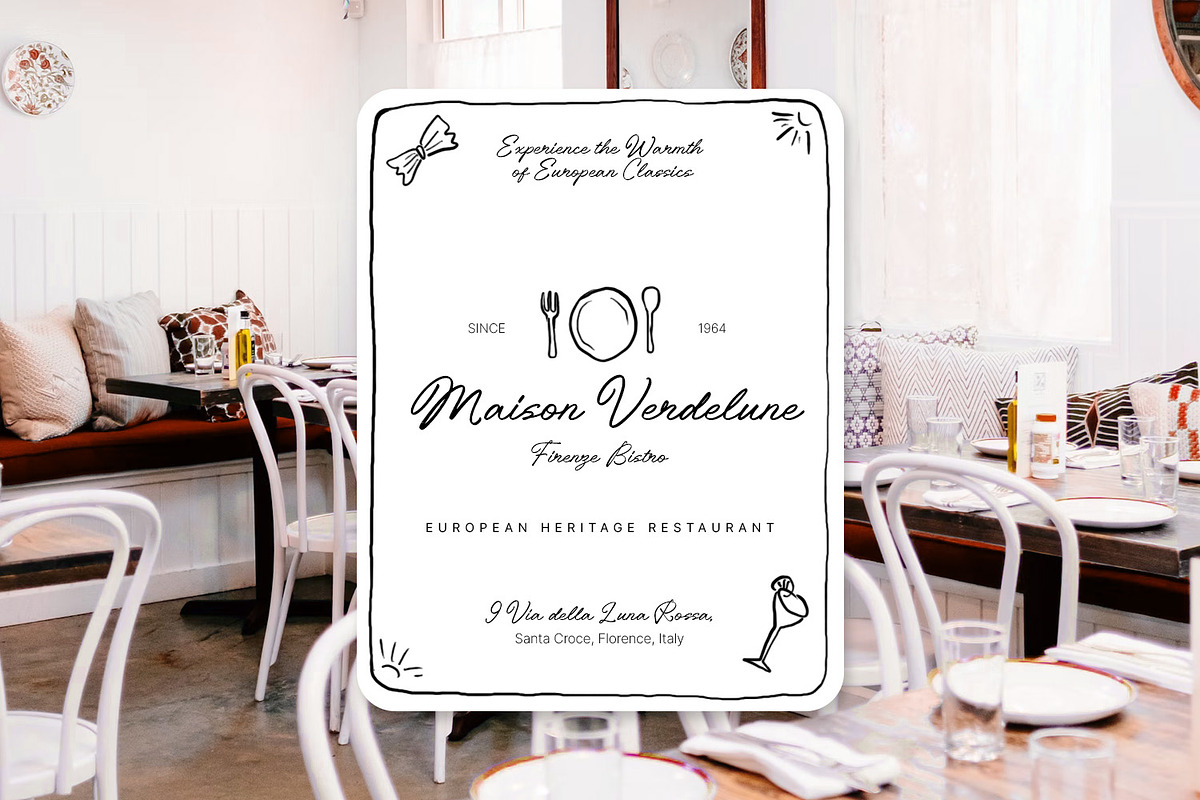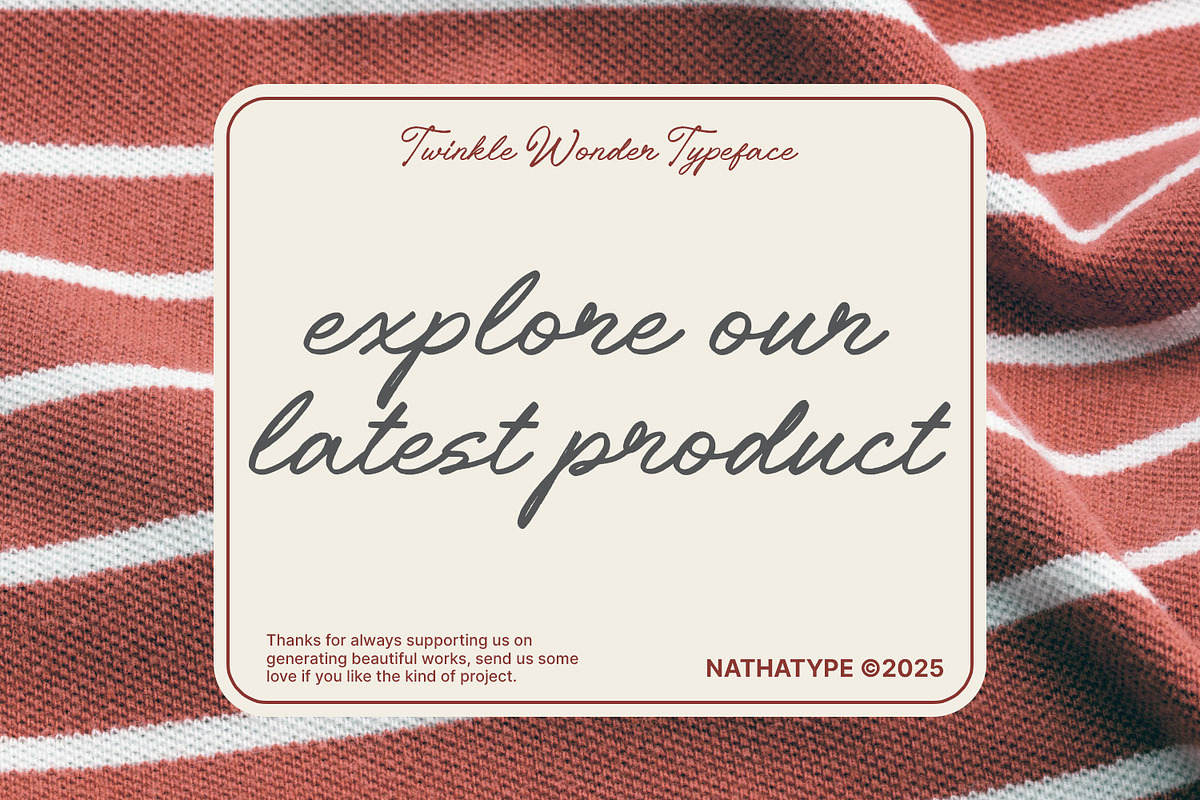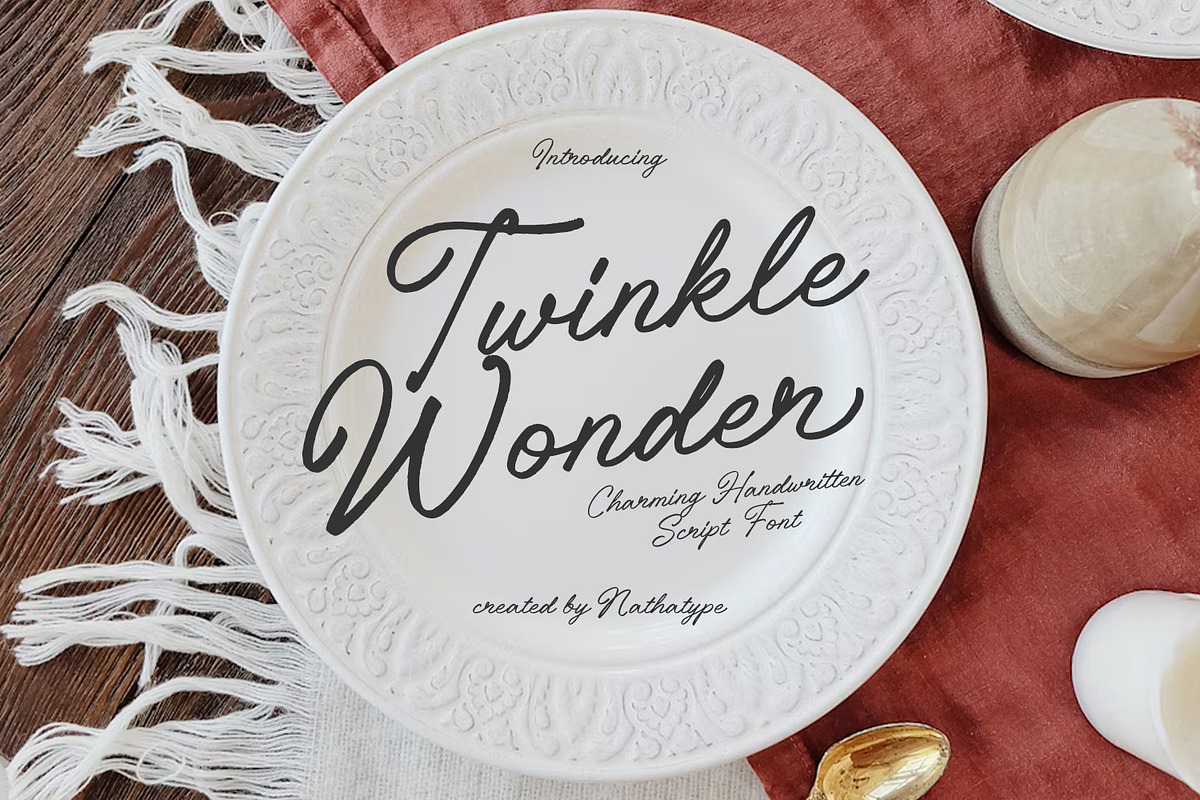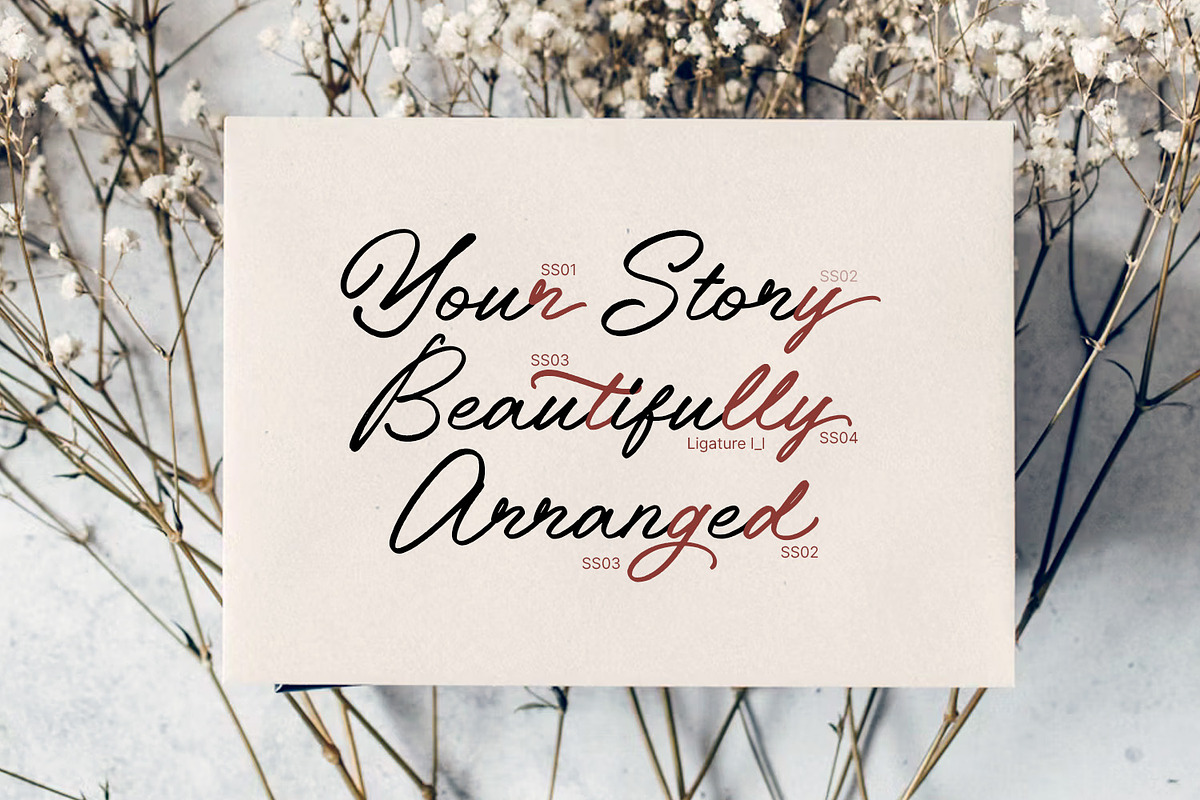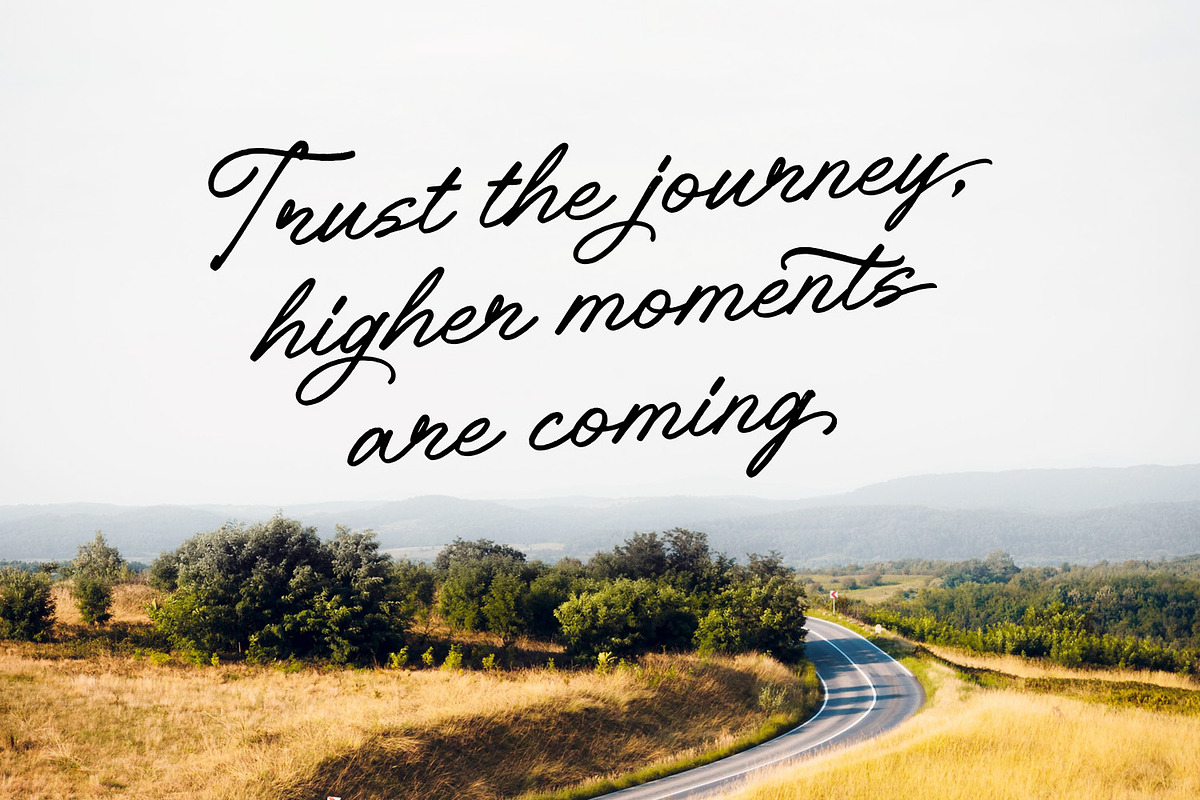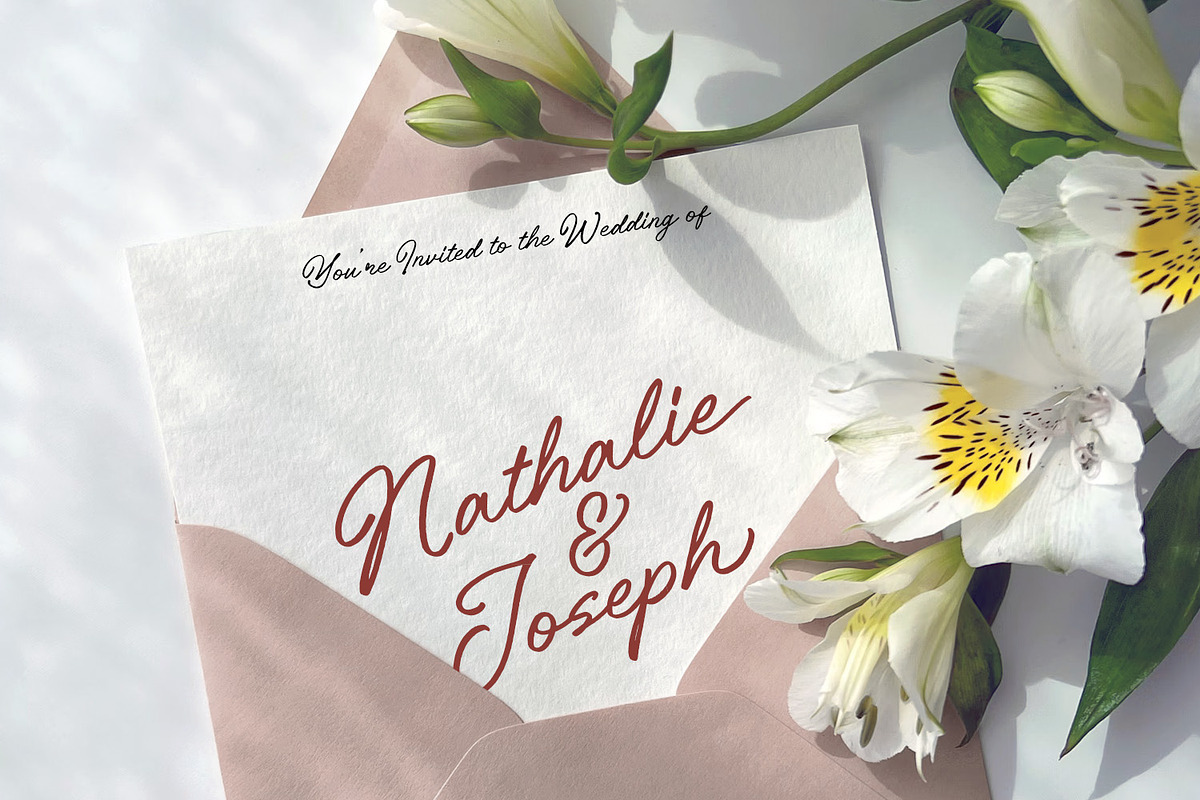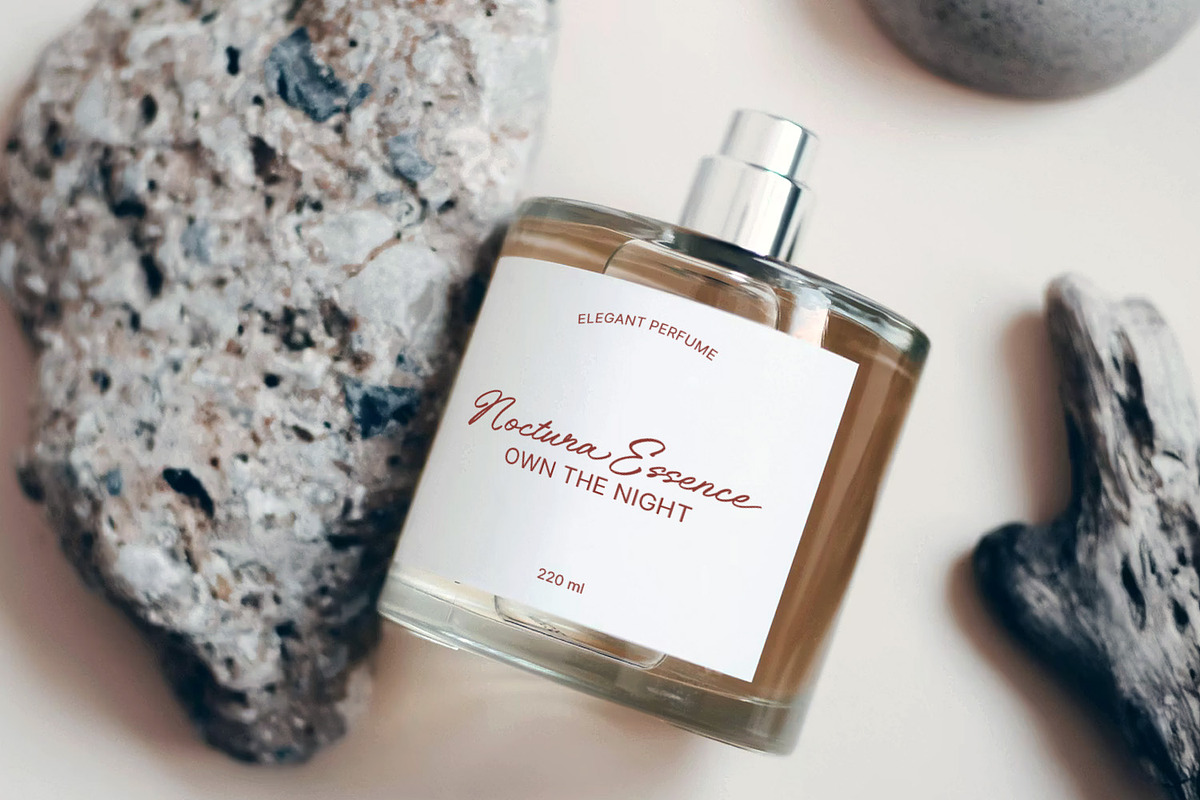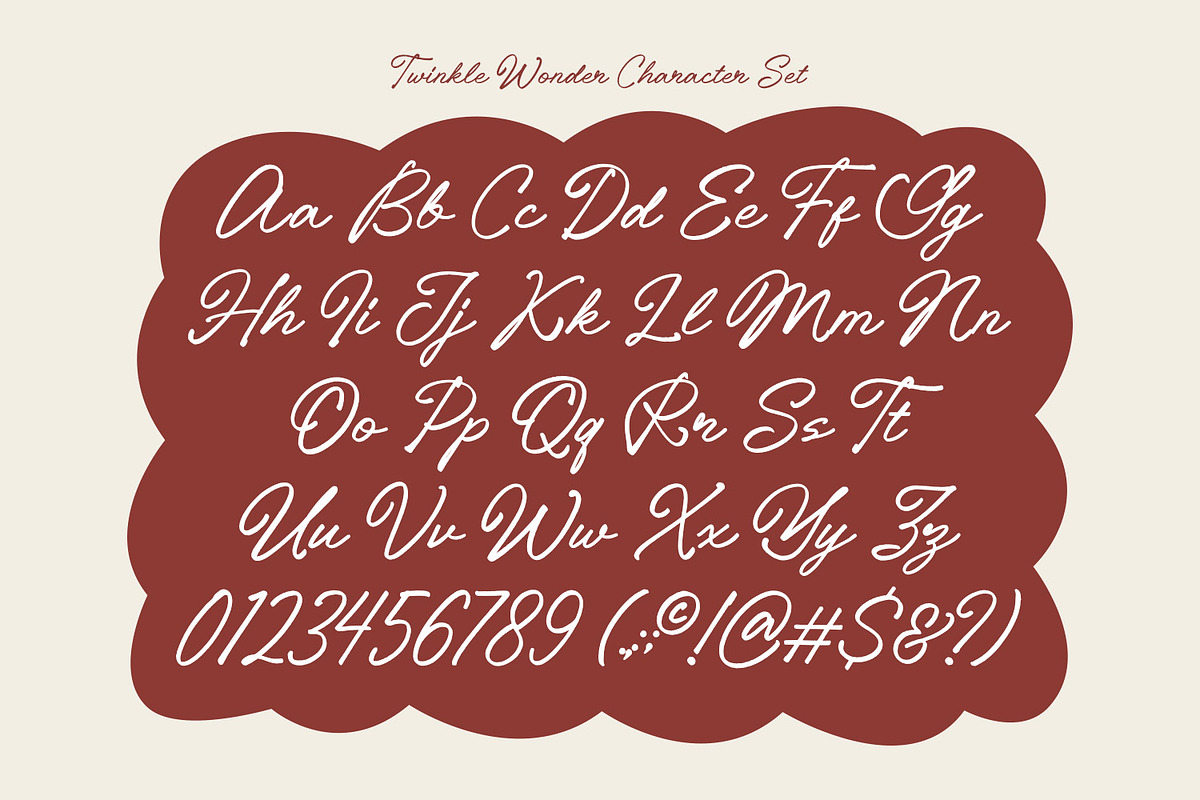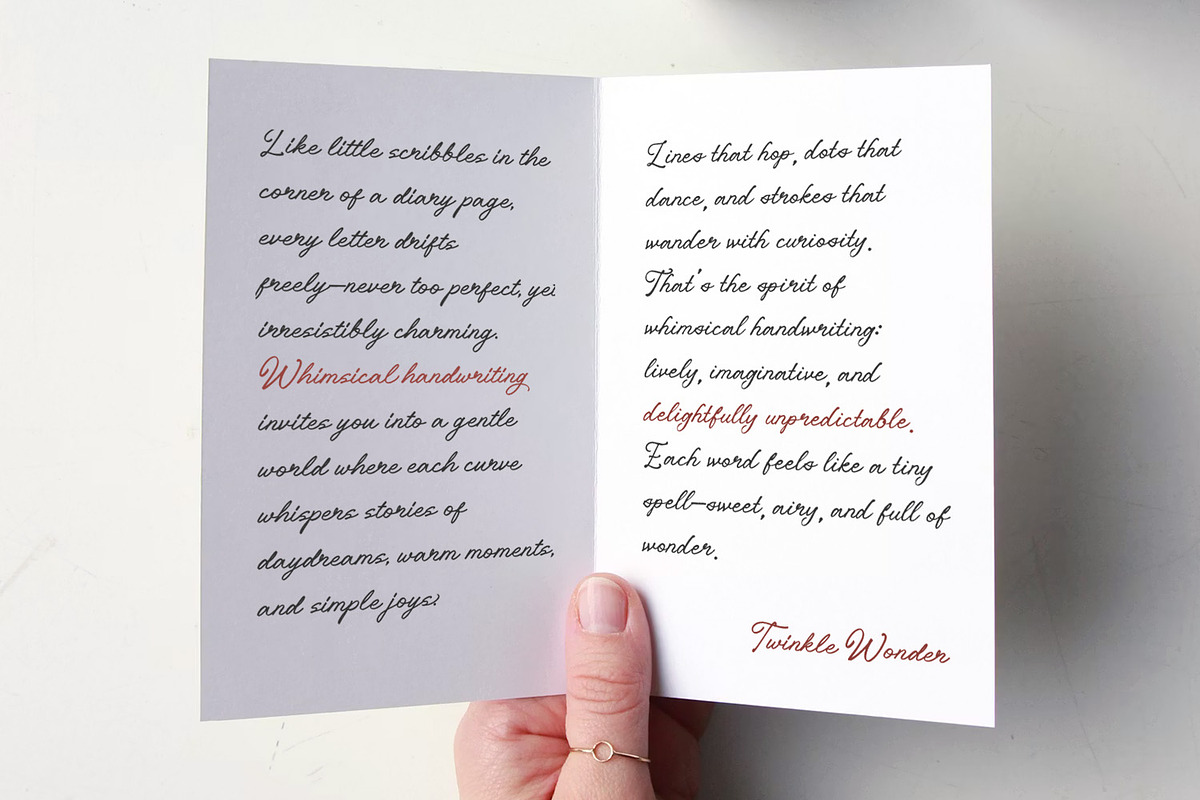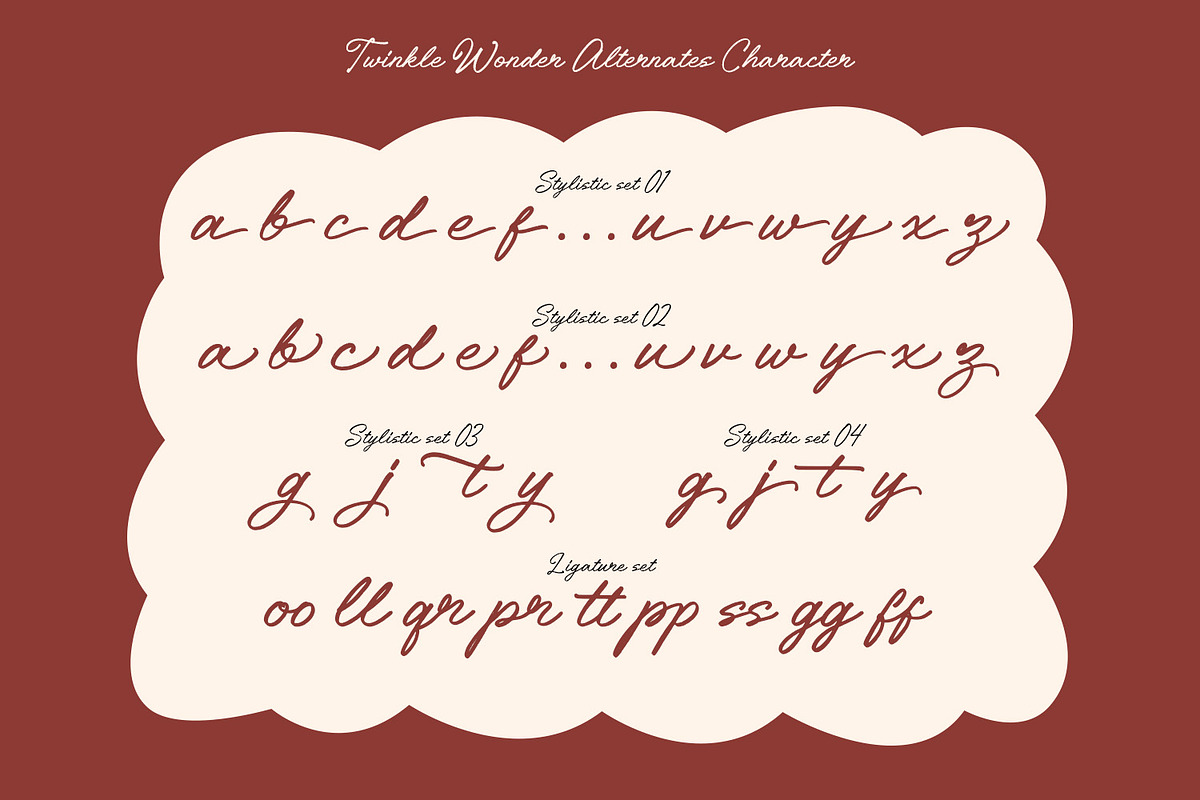
Twinkle Wonder
Twinkle Wonder is a charming script font. Inspired by natural cursive writing, Twinkle Wonder shows flowing strokes and carefully spaced connections that create a seamless rhythm across words and phrases. The font’s consistent and neat letter proportions deliver a smooth, balanced flow that feels both personal and professional. Twinkle Wonder is perfect for designers who want a handwritten look that remains refined, readable, and visually harmonious. In addition, enjoy the features here.
- Stylistic Sets
Twinkle Wonder fits in logos, invitations, quotes, branding, posters, and many more designs. Find out more ways to use this font by taking a look at the font preview.